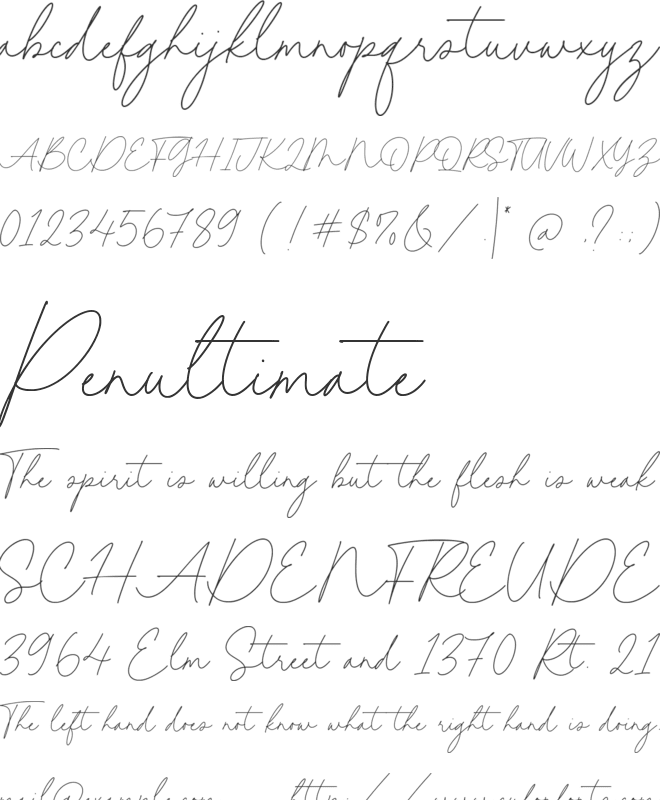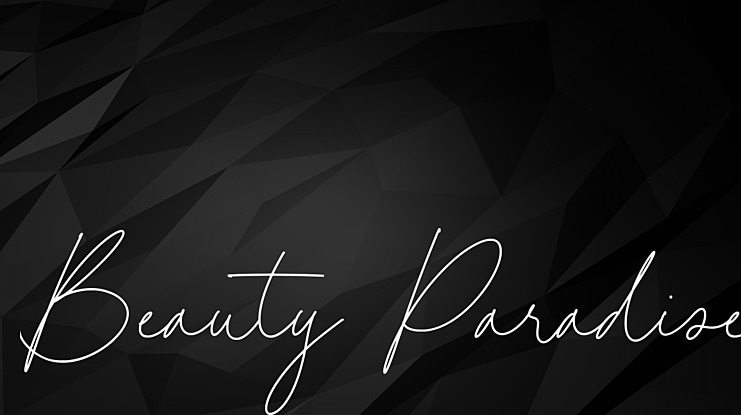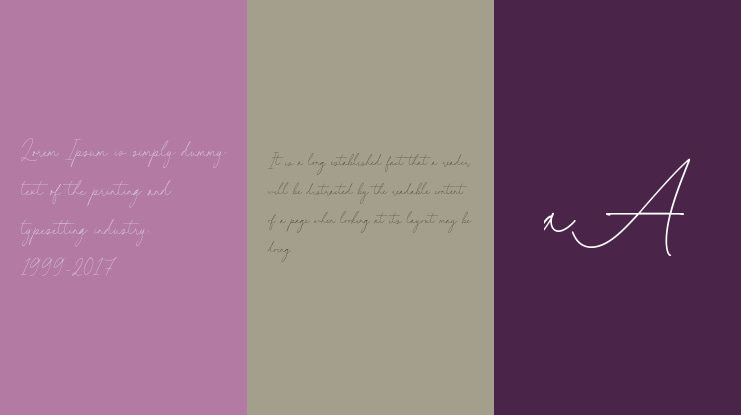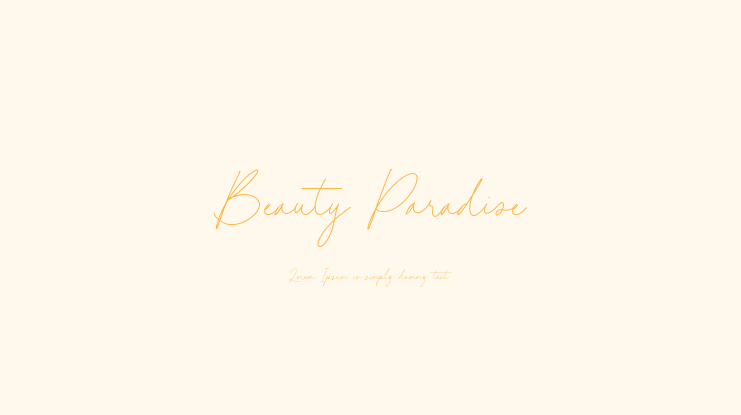
Introduced by Timur type
Proudly Present Beauty paradise
Beauty paradise is a Modern font that is modern and fresh, and will bring a warm and inviting feel to your business. Take advantage of the fonts and experience the magic for yourself.
Beauty paradise is perfect for product packaging, branding project, megeenazine, social media, wedding, or just used to express words above the background.
Beauty paradise Font Features premium :
-Full Set of standard alphabet and punctuation
Beauty paradise also multilingual support.